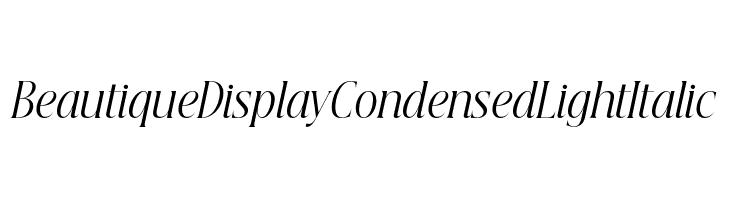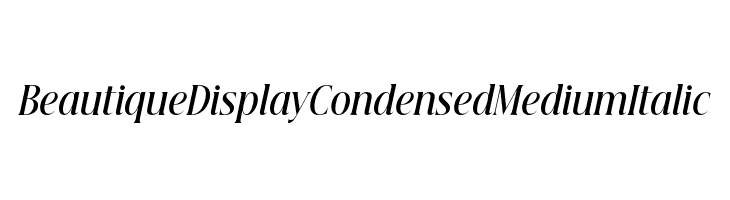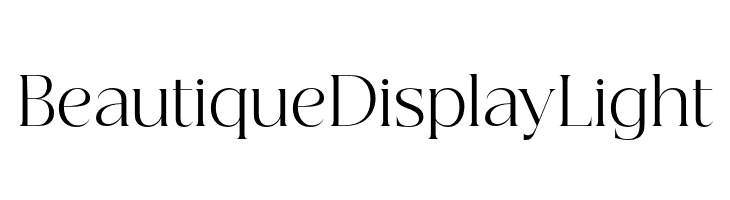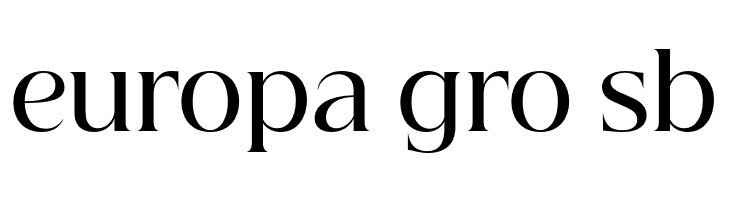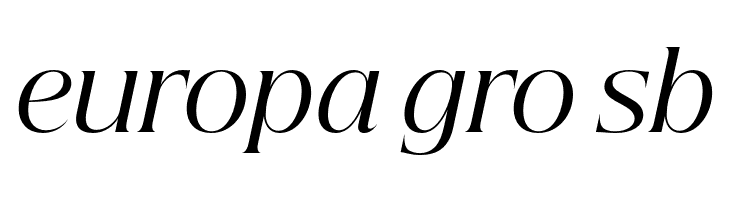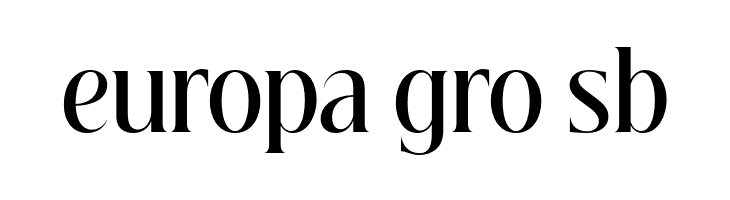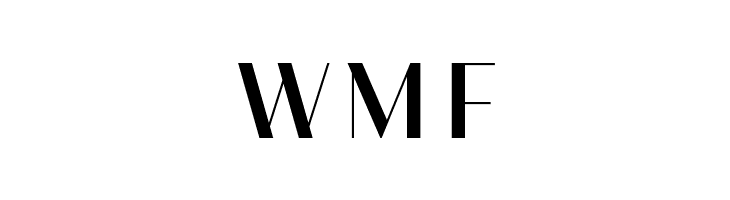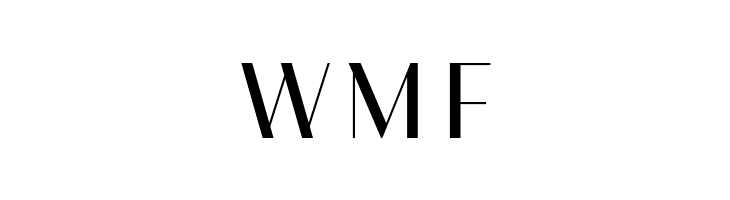
Elegant, high-contrast, and condensed font with sharp serifs.
An elegant, condensed, light italic typeface with a modern and sophisticated style.
Elegant and sophisticated font with high contrast and condensed letterforms.
A refined, condensed, and italic serif font with medium contrast.
An elegant italic font with smooth lines and a graceful slant, perfect for luxury branding.
An elegant, high-contrast serif font with modern, elongated strokes.
An elegant, light, and italic typeface with a modern and sophisticated style.
Elegant serif font with high contrast and refined details.
An elegant, italic typeface with high contrast and a modern yet vintage charm.
A refined serif font with high contrast and elegant serifs.